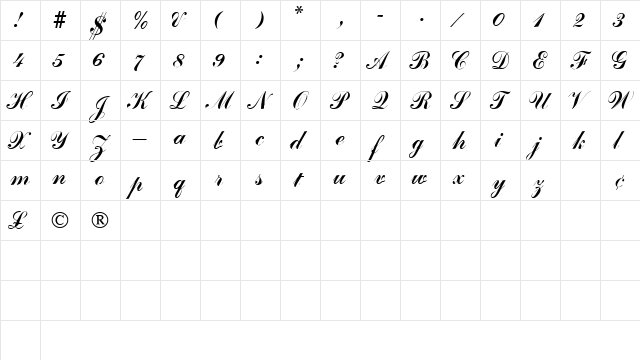
BrigadeScriptSSK Regular
Design Context for BrigadeScriptSSK Typeface
BrigadeScriptSSK flows with the natural rhythm of handwritten lettering, making it ideal for designs that call for warmth and personal expression.
Font Pairing: Combine BrigadeScriptSSK with a simple geometric sans for maximum contrast — the tension between flowing curves and clean structure is a classic typographic pairing.
Pro Tip: Pair BrigadeScriptSSK with a clean sans-serif for supporting text. The contrast between fluid script and geometric structure creates an elegant typographic hierarchy.